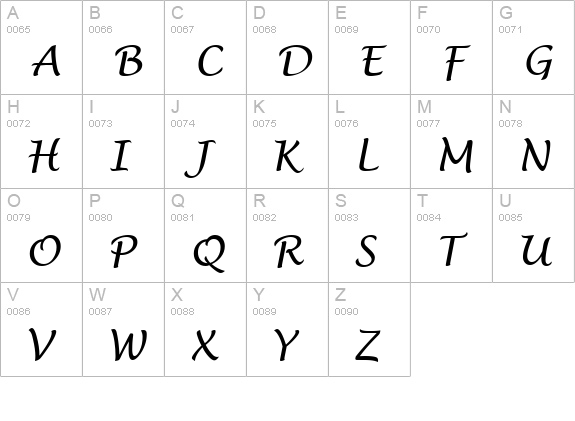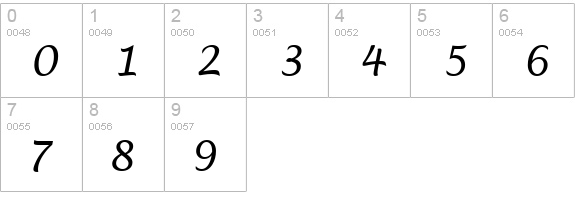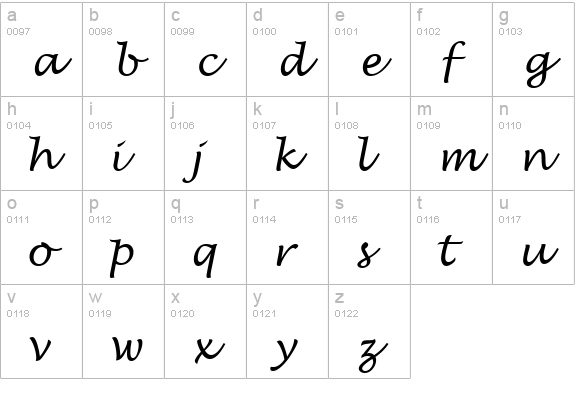
TR Lucida Handwriting Italic Font Details
TR Lucida Handwriting Italic is a distinctive, italic variant in the TR typeface family \xE2\x80\x94 well suited to design and typography projects.
TR Lucida Handwriting Italic is a beautiful and elegant font that exudes sophistication and charm. With its delicate and flowing lines, this font is perfect for adding a touch of style to any project. Whether you're designing invitations, creating a logo, or crafting a romantic love letter, TR Lucida Handwriting Italic is sure to make a statement. The italic style adds a sense of grace and movement to the text, making it ideal for conveying a sense of creativity and individuality. Its handwritten appearance gives a personal touch to any design, making it stand out from the crowd. Best of all, TR Lucida Handwriting Italic is completely free to download at FontsMarket.com. This means you can easily access this stylish font and use it in your projects without any cost. Don't miss out on the opportunity to enhance your designs with this captivating and versatile font. Download TR Lucida Handwriting Italic today and let your creativity shine!